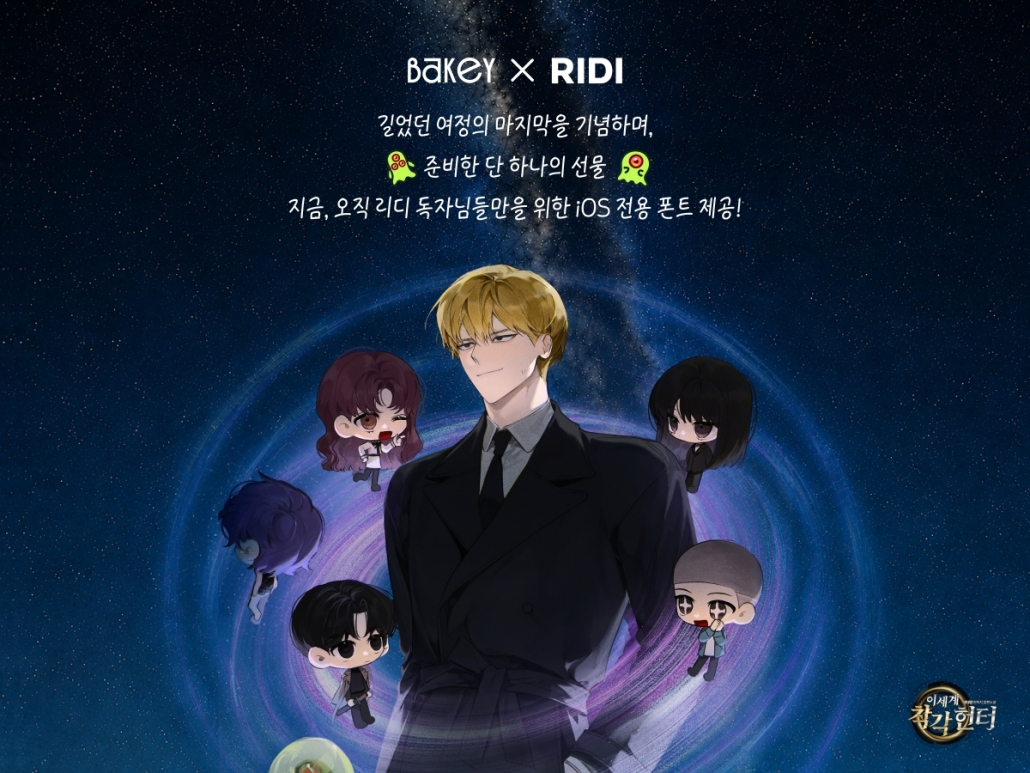
[ Press release]Sandoll Expands Font IP Business from Webtoons to Web Novels with Launch of ‘Illusion Hunter From Another World’ Font
• aunches ‘Iam Illusion Hunter From Another World’, the industry’s first mobile font based on a web novel IP
• Fonts evolve from content creation tools into IP-driven businesses, with expansion planned into digital goods such as themes and stickers
AI content platform company Sandoll (CEO Youngho Yun) announced the launch of a mobile font based on the popular web novel IP Illusion Hunter From Another World through a collaboration with content platform company RIDI
This collaboration marks the industry's first case of expanding an IP collaboration category within Sandoll’s mobile font platform Bakey from webtoons into the web novel sector. Sandoll previously introduced a mobile font based on the Kakao Webtoon IP Dust Ball Jjangdeok, and through its partnership with RIDI, is now extending its IP collaboration lineup to web novel fandoms as well.
Illusion Hunter From Another World is a fantasy web novel exclusively serialized on RIDI and has surpassed 50 million cumulative views since publication. The title won the Fantasy Grand Prize at the RIDI Awards for two consecutive years in 2023 and 2024. Its webtoon adaptation has also maintained a top-ranking position within its category.
Sandoll developed ‘Iam Illusion Hunter From Another World’ by incorporating the unique fantasy and otherworldly atmosphere of the original work. As mobile fonts increasingly serve not only as typography but also as digital merchandise that allows fans to experience their favorite content IPs in everyday life, the company embedded the novel’s worldbuilding and symbolic elements throughout the font to strengthen fan engagement.
The font features a Hidden Dingbat function, which displays visual elements such as planets and extraterrestrial creatures from the story while typing. These dingbats utilize color font technology, allowing compatible devices to faithfully reproduce colors that reflect the work’s universe. Iam Illusion Hunter From Another World will be available for purchase through the Bakey mobile font app.
A Sandoll representative said, “Following our collaboration with the Kakao Webtoon Dust Ball Jjangdeok, this partnership with RIDI’s popular web novel IP represents a meaningful expansion of our IP collaboration lineup into the web novel category. We will continue to broaden the user experience of mobile fonts into the entertainment space through collaborations with diverse content IPs.”
Meanwhile, Sandoll is fostering mobile fonts as a core pillar of its IP-based digital merchandise business. The company has been expanding touchpoints with fandoms by introducing mobile fonts based on various content IPs, including webtoons and web novels, and is currently exploring ways to extend IP utilization into broader digital merchandise categories beyond mobile fonts.